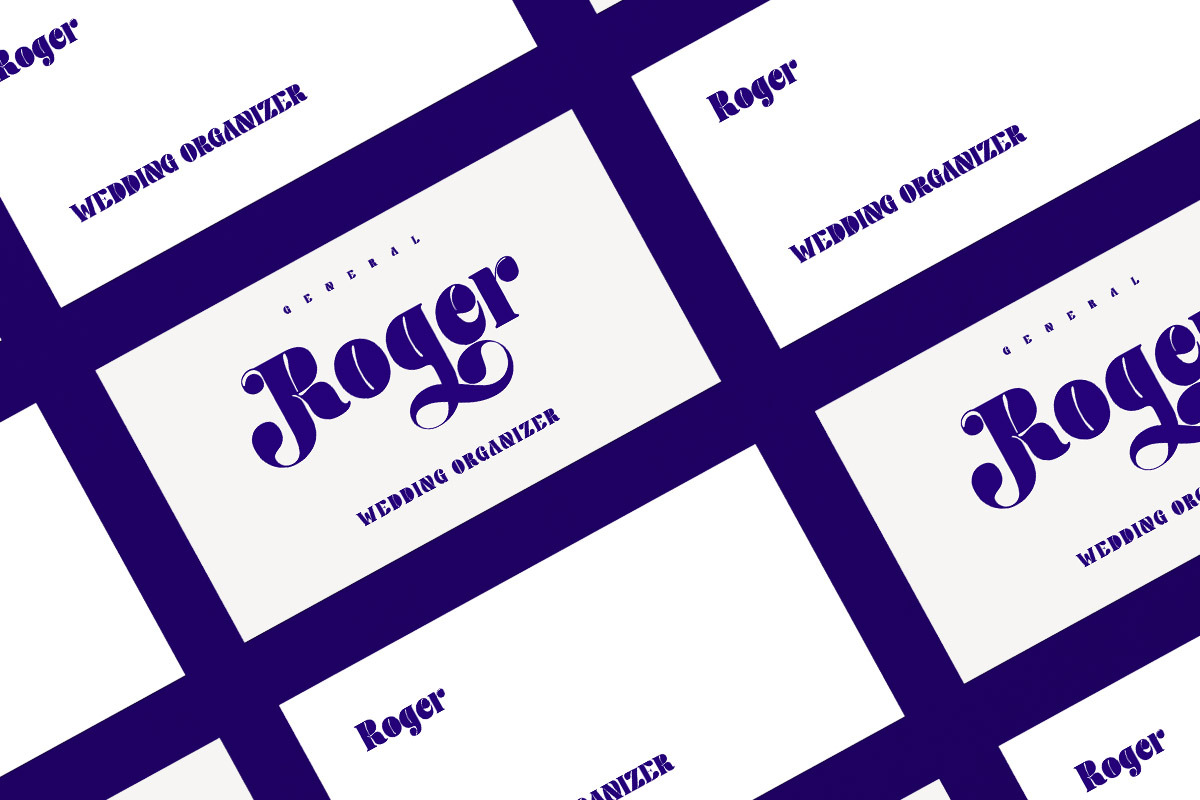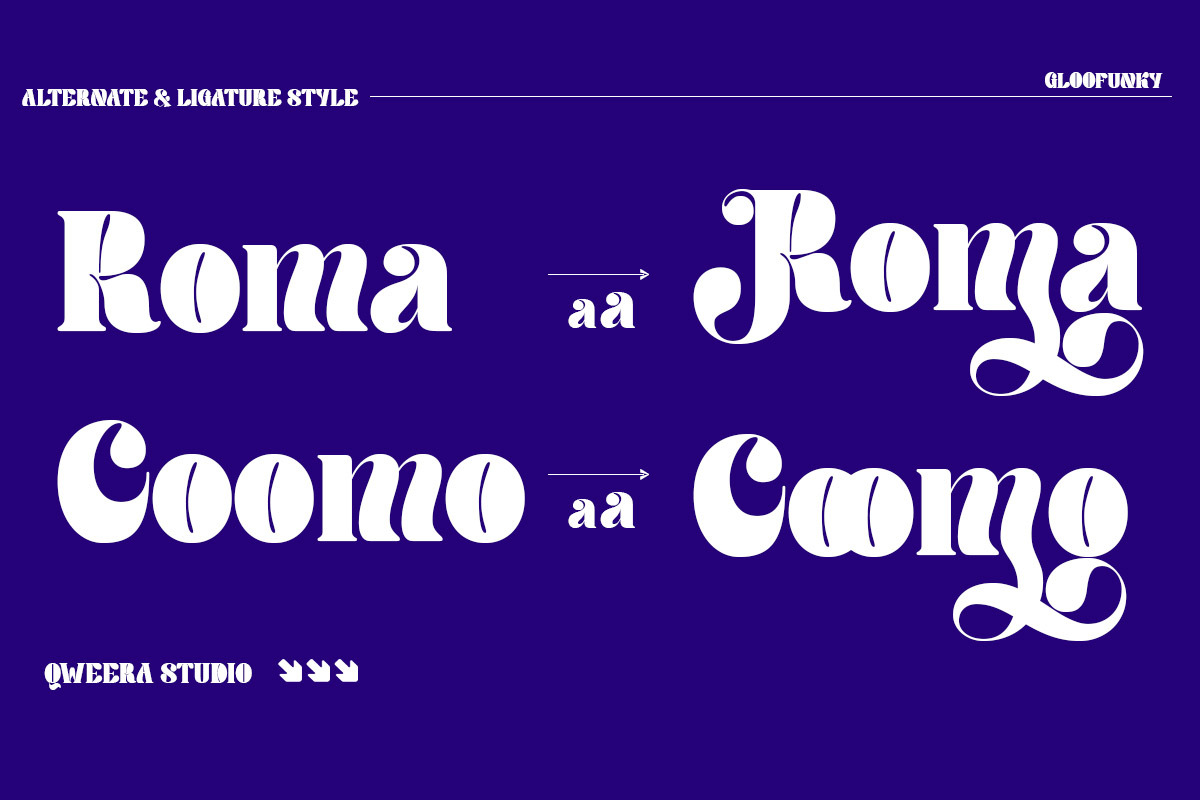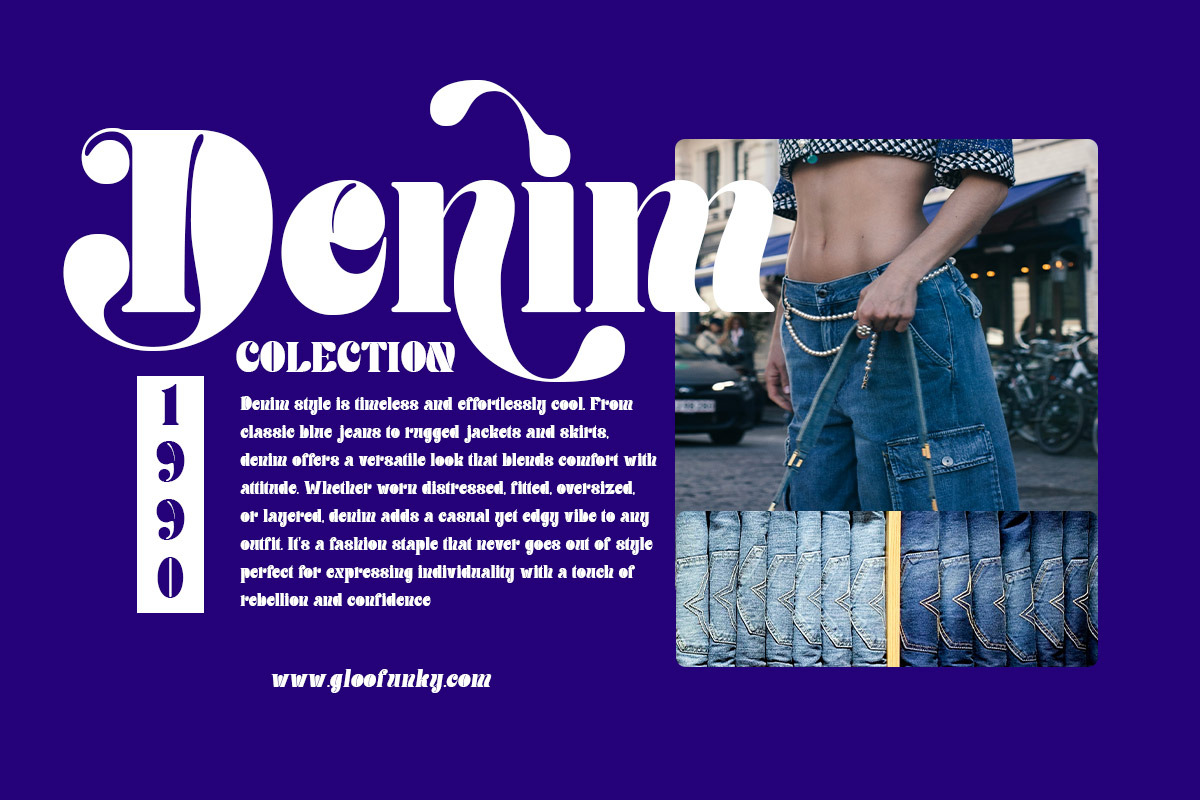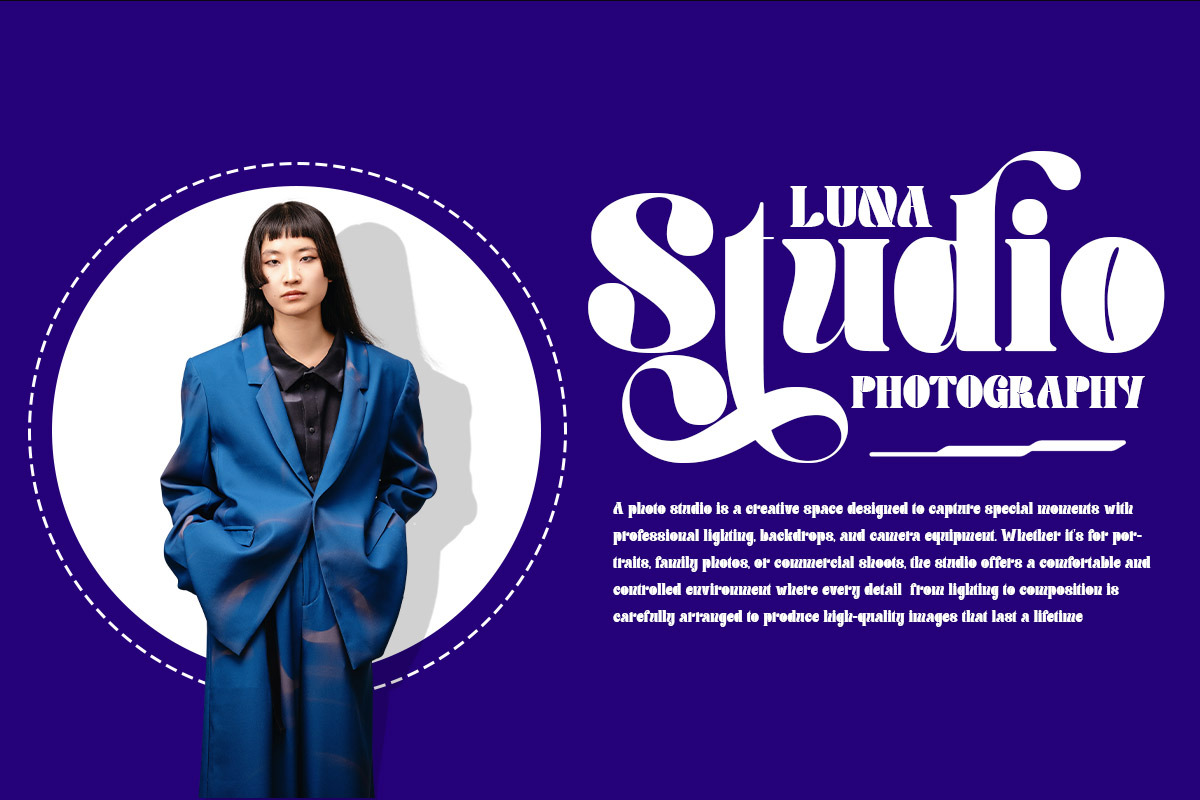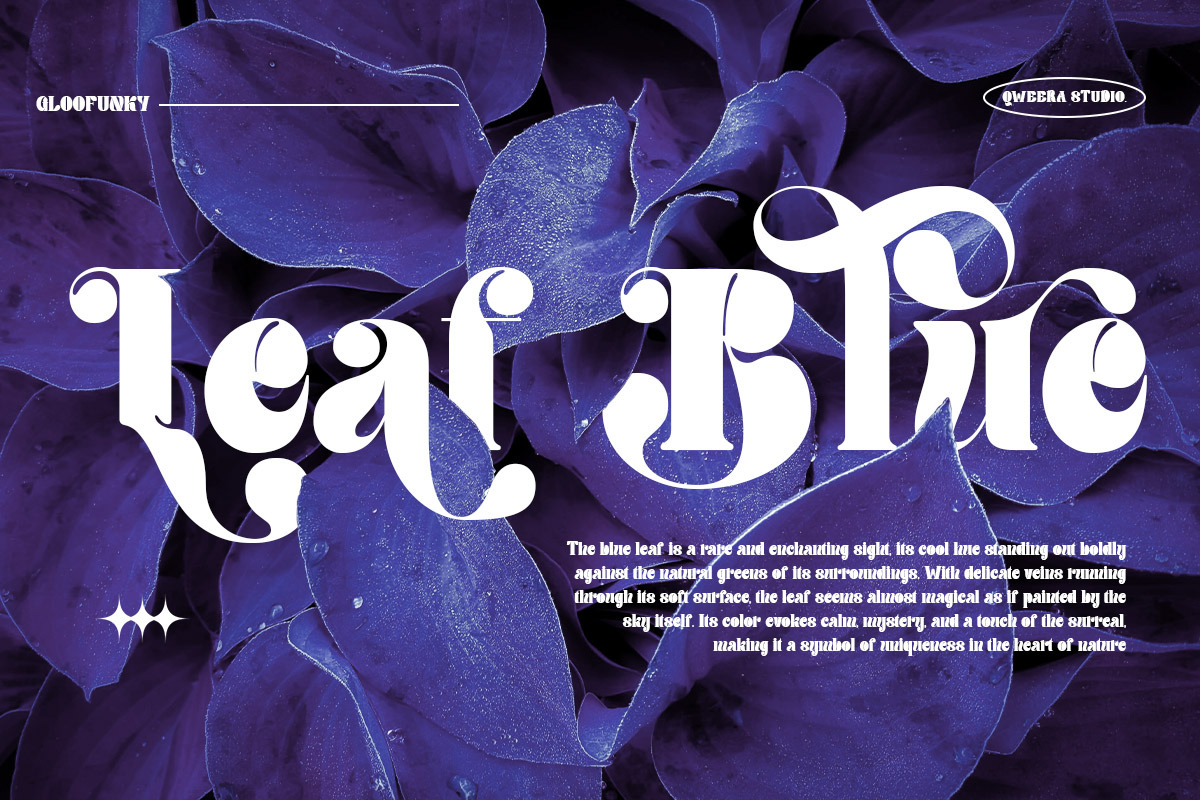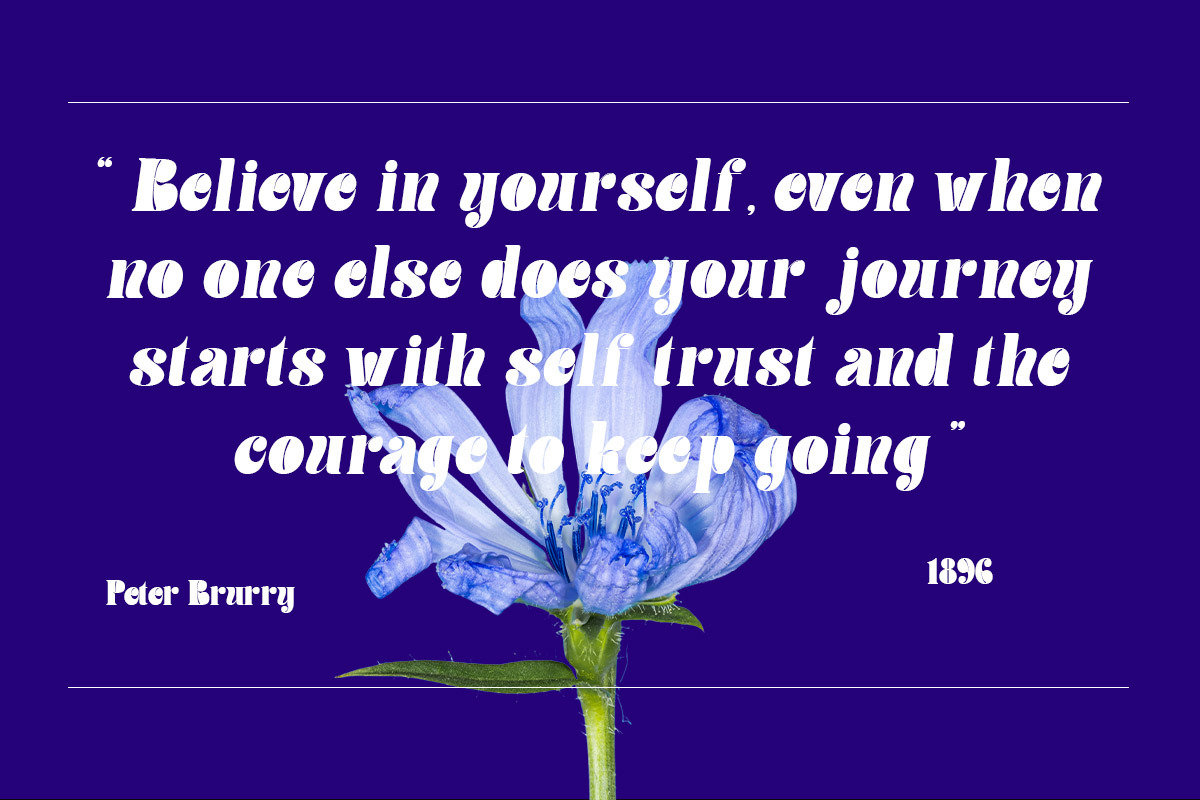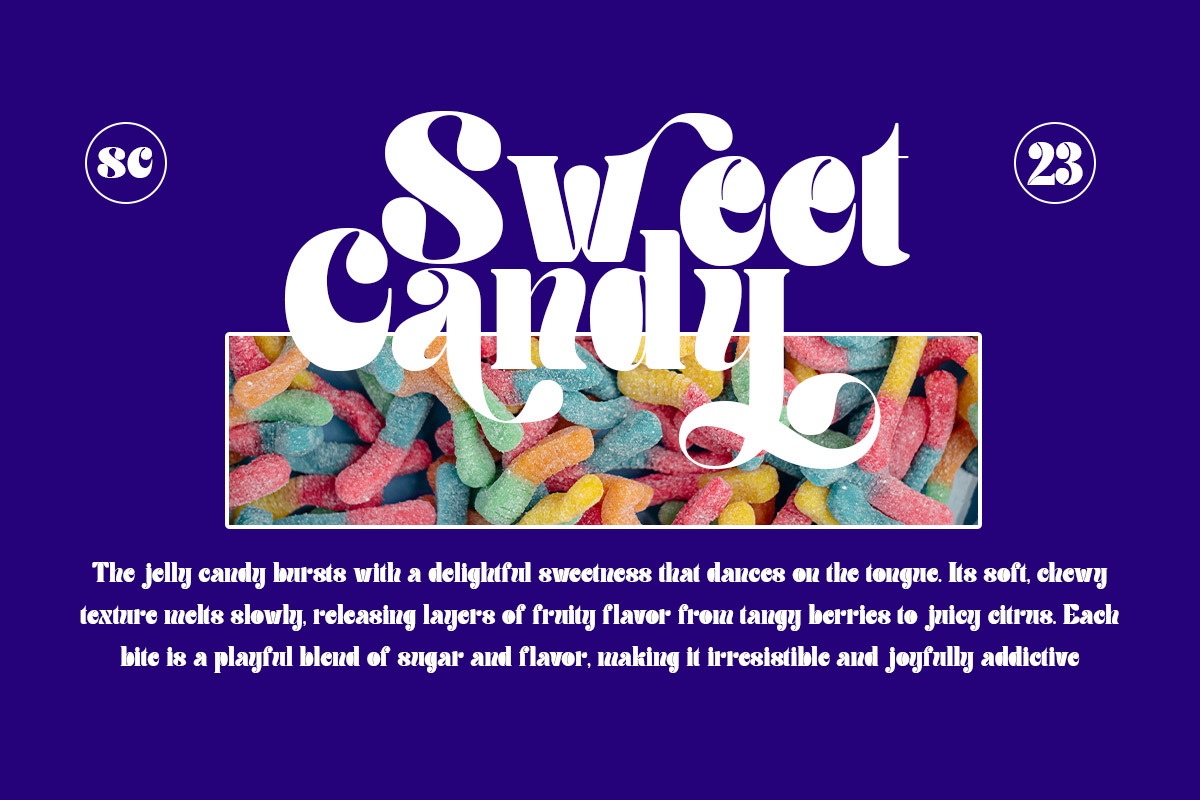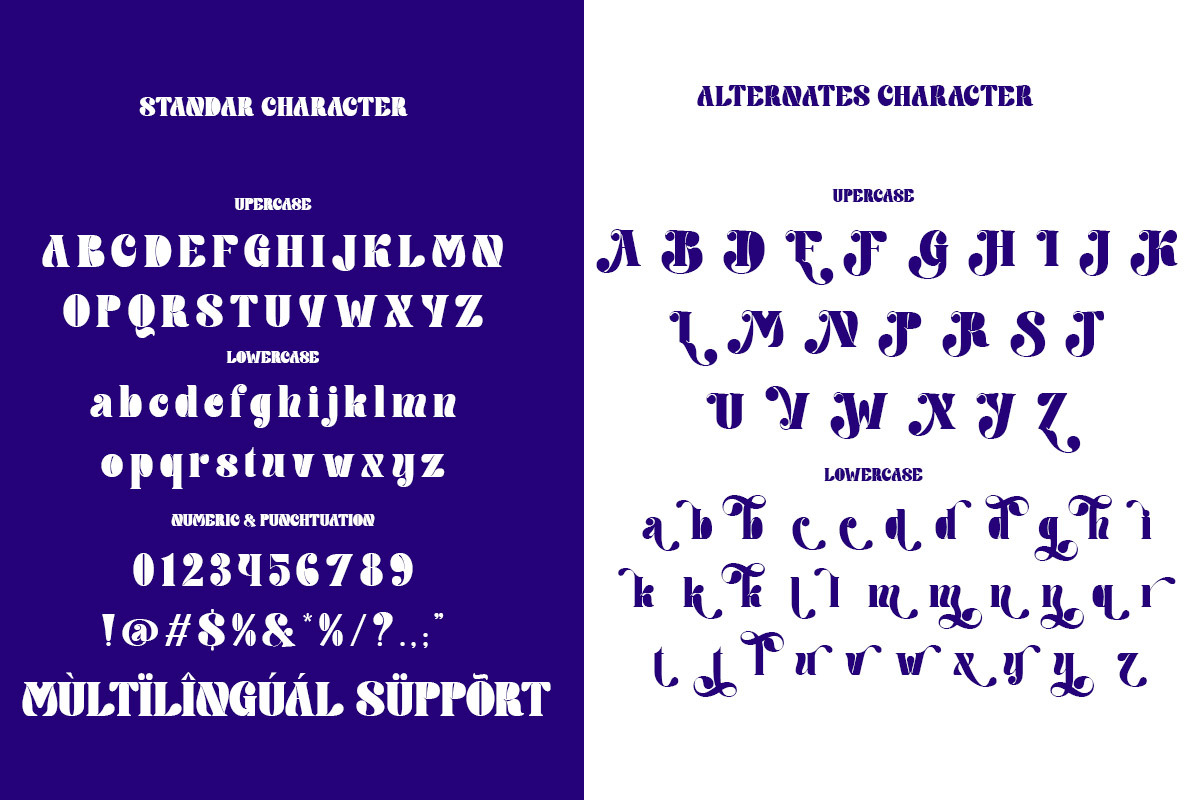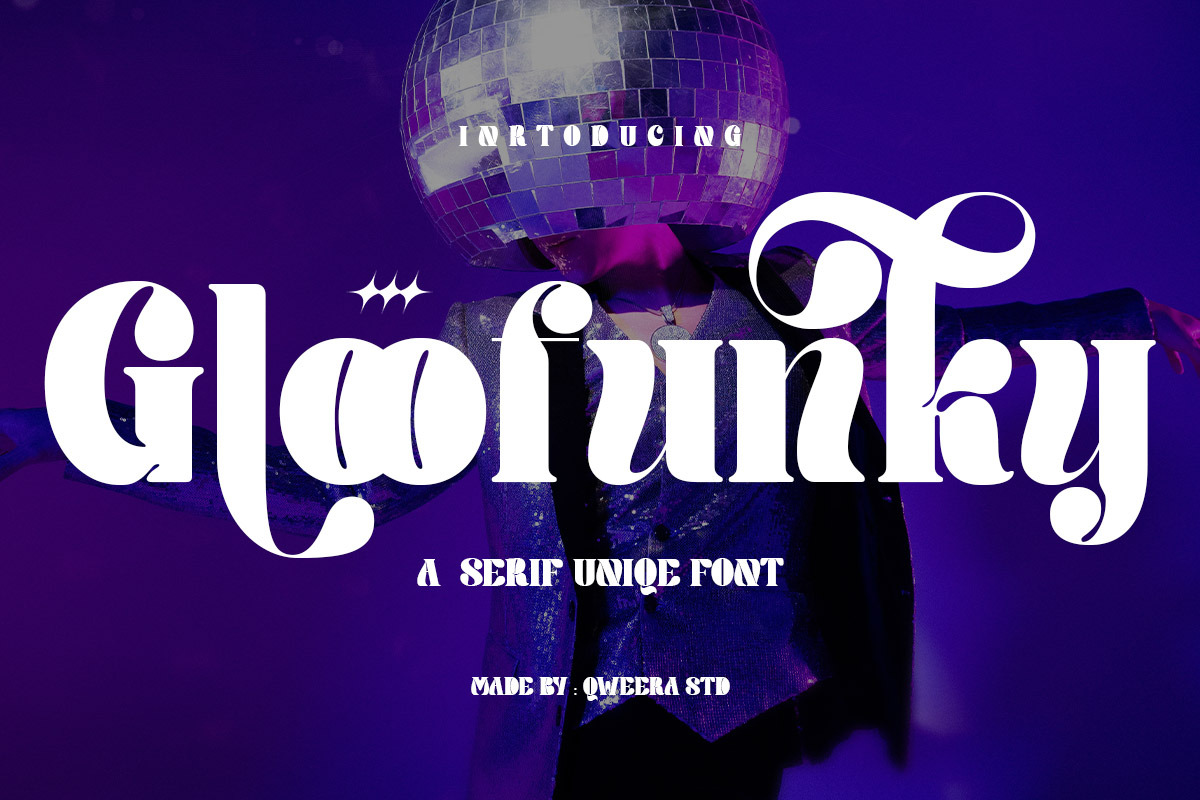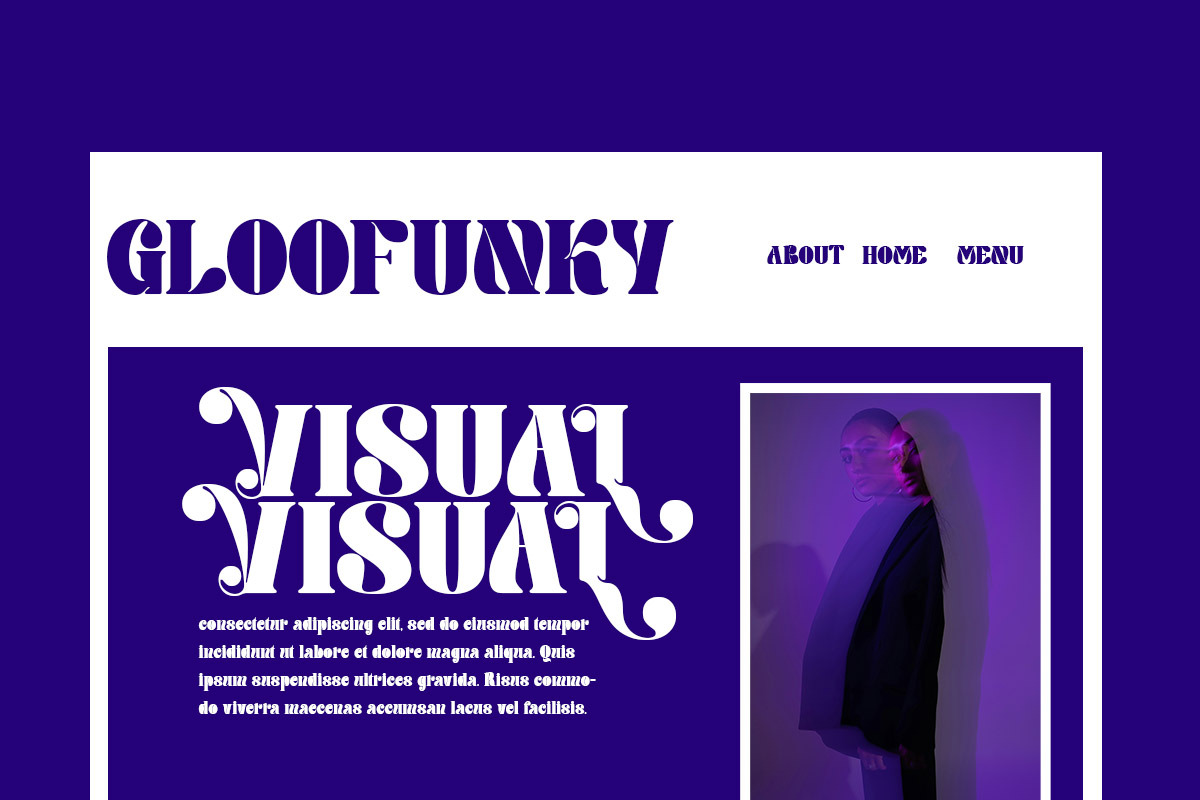
Gloofunky - Elegant Display Font
Gloofunky - Elegant Unique Display Serif Font for Standout Branding
Gloofunky is a captivating display serif that masterfully blends unconventional elegance with artistic flair. Featuring both regular and italic versions with expressive stylistic alternates and ligatures, this typeface is expertly crafted for distinctive branding, memorable logos, eye-catching packaging, and editorial designs that demand attention.
Where Quirky Elegance Meets Sophisticated Design
With its unique character shapes and playful yet refined aesthetic, Gloofunky delivers unparalleled versatility for brands seeking both personality and prestige. The carefully designed alternates and ligatures enable you to create truly one-of-a-kind typographic expressions.
Premium Features Include:
- Unique Display Serif – Unconventional yet elegant letterforms
- Dual Style Versions – Regular & italic for dynamic applications
- Expressive Alternates – 30+ distinctive glyph variations
- Artistic Ligatures – Seamless character connections
- Universal Compatibility – From product packaging to billboards
- Extended Latin Support – Comprehensive character set
Make Your Mark with Gloofunky's Distinctive Charm Ideal for:
- Contemporary fashion branding
- Creative agency identities
- Artisanal product packaging
- Music festival promotions
- Editorial headline typography